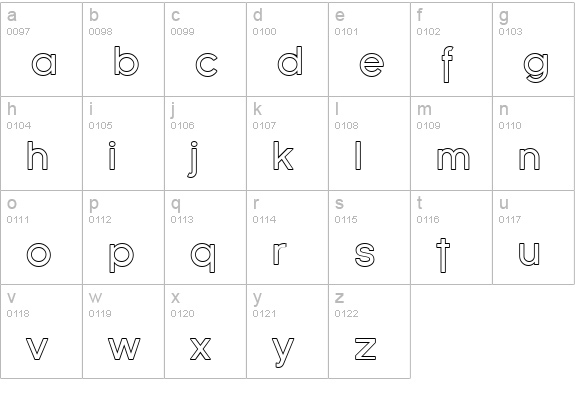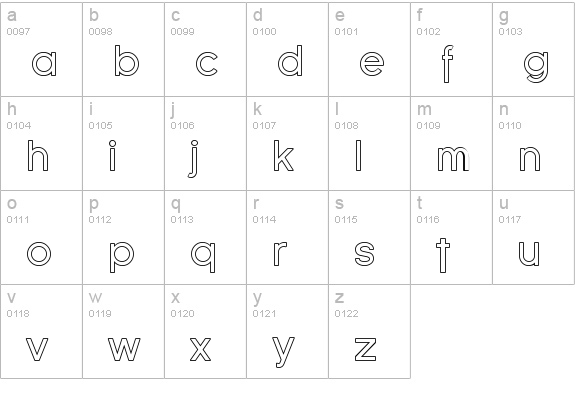
Florencesans Outline Font Details
Florencesans Outline font is a modern and stylish typeface that is perfect for adding a touch of sophistication to your designs. With its clean lines and elegant appearance, this font is sure to make a statement. The outline style adds a unique and eye-catching element to any project, making it stand out from the crowd. The best part? Florencesans Outline font is available for free download at FontsMarket.com, so you can start using it in your projects right away. Whether you're working on a logo, branding, or any other design project, this font is sure to add a professional and polished look. Don't miss out on this fantastic opportunity to enhance your designs with Florencesans Outline font today!